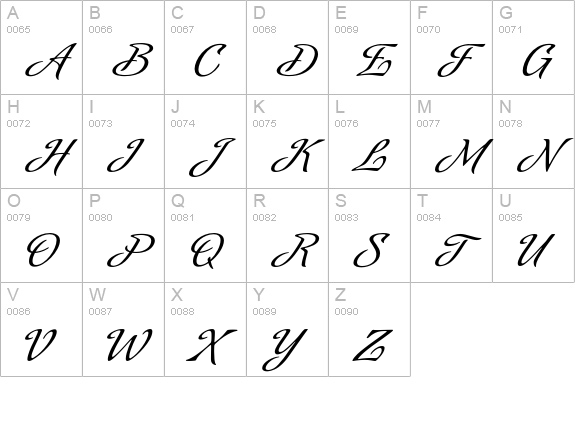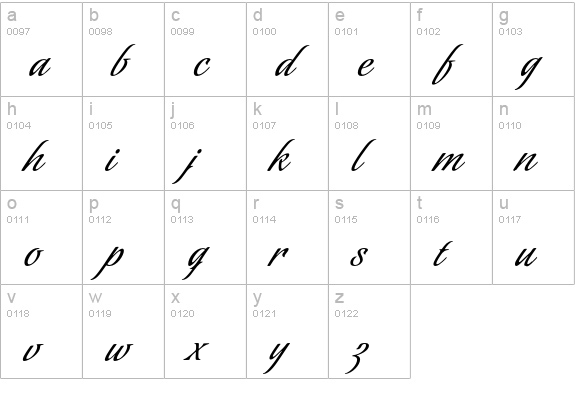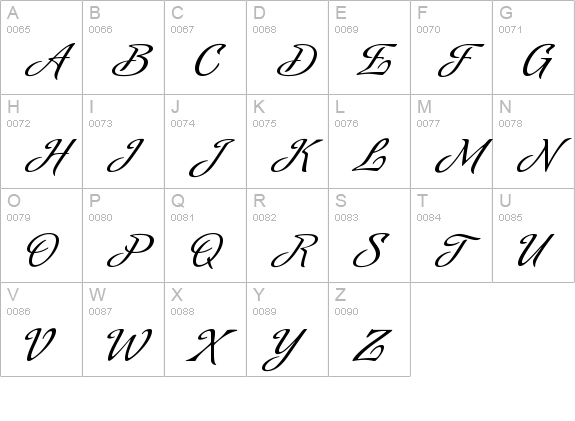
Sinfonieta Font Details
Sinfonieta font is a stunning display typeface that combines elegance and modernity in perfect harmony. With its delicate lines and graceful curves, this font exudes a sense of sophistication and refinement that is sure to elevate any design project. Featuring a unique blend of classic letterforms and contemporary details, Sinfonieta font captures attention with its effortless beauty. Its versatile nature allows it to be used for a wide range of applications, from branding and packaging to editorial design and advertising. What sets Sinfonieta font apart is not just its exquisite design, but also the fact that it is free. Yes, you read that right! This exceptional font is freely available to download at FontsMarket.com, making it accessible to designers, creatives, and enthusiasts alike. Now, you can add a touch of elegance to your projects without breaking the bank. Whether you're designing a high-end fashion magazine, a luxury brand logo, or a sophisticated wedding invitation, Sinfonieta font will effortlessly elevate your work to new heights. Its timeless appeal and refined aesthetics make it a go-to choice for those who seek to make a lasting impression. With its wide range of weights and styles, Sinfonieta font offers endless possibilities for creative exploration. Whether you prefer a bold and impactful look or a more delicate and airy feel, this font has you covered. Its versatility allows it to adapt to different design contexts while maintaining its undeniable charm. Download Sinfonieta font today at FontsMarket.com and unlock the unlimited potential it holds. Let this mesmerizing typeface take your designs to the next level and leave a lasting impact on your audience. With Sinfonieta font, the world is your canvas, and your creativity knows no bounds.